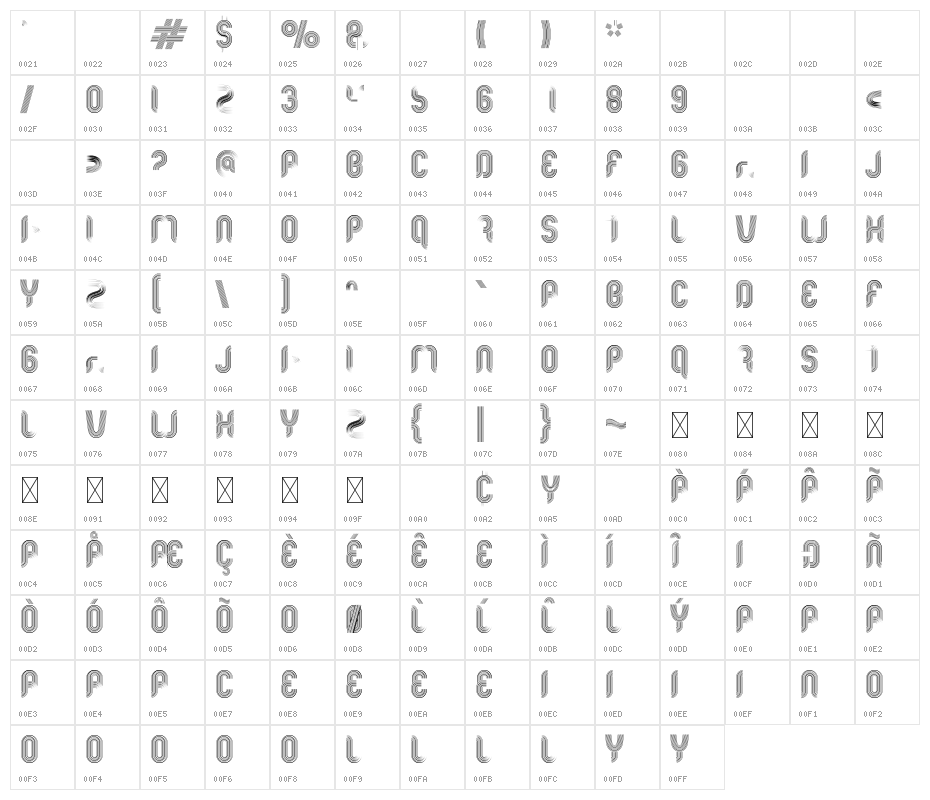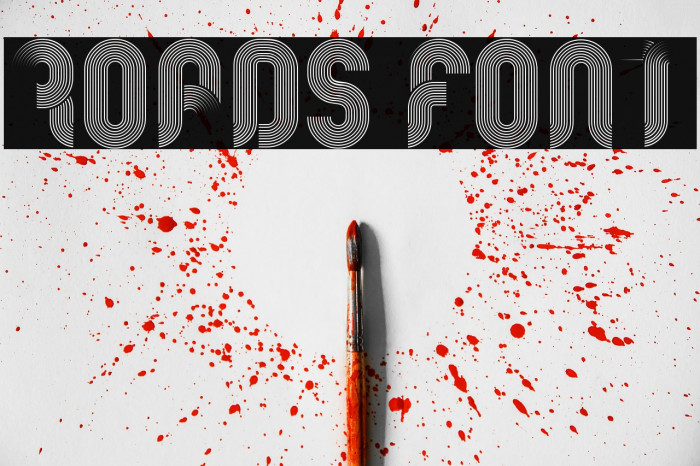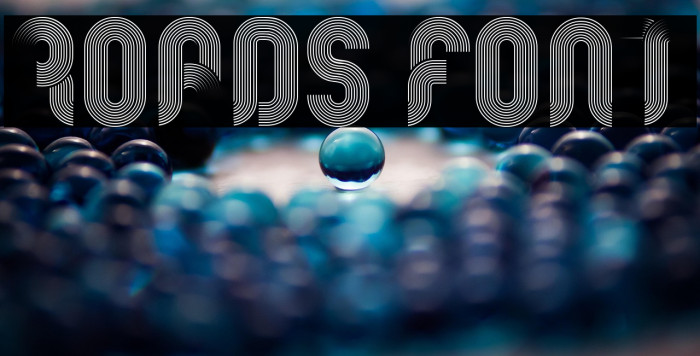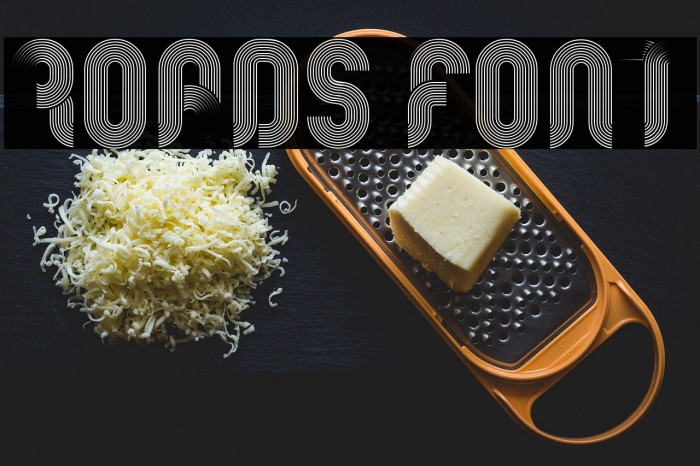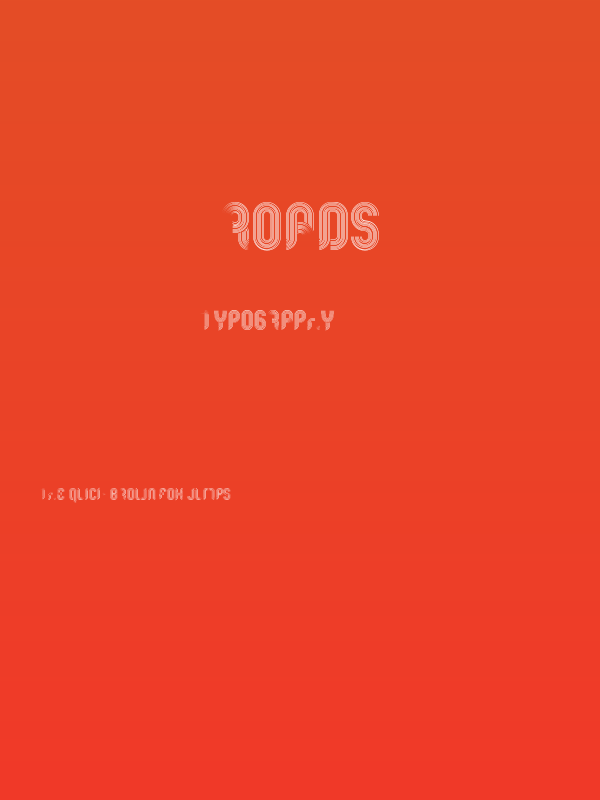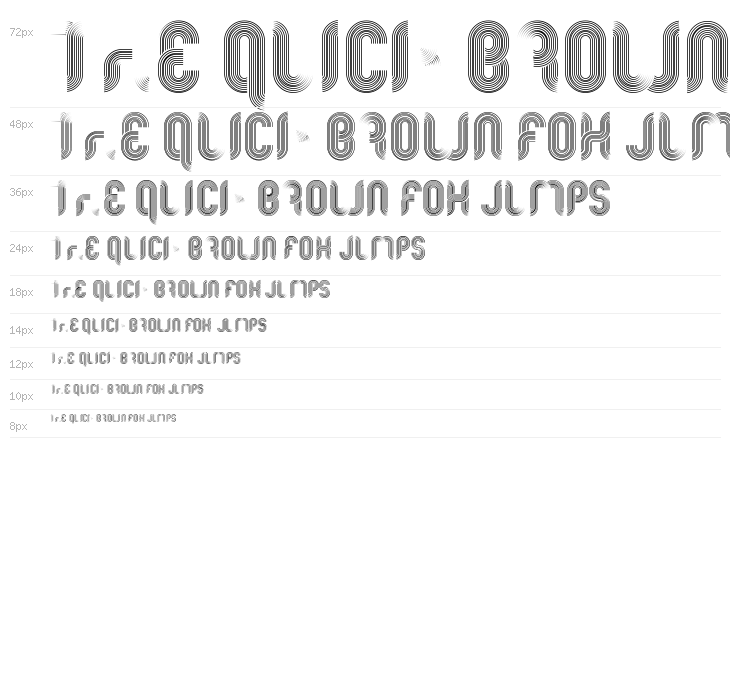
Roads Font
Roads Description
This font features a unique and modern design with a series of parallel lines creating a layered, three-dimensional effect. Each character is composed of multiple strokes that give it a sense of depth and movement. The font maintains a consistent geometric structure, with rounded edges and a bold presence. The intricate line work adds a decorative touch, making it stand out in any design. Its futuristic and dynamic appearance makes it suitable for projects that require a strong visual impact.